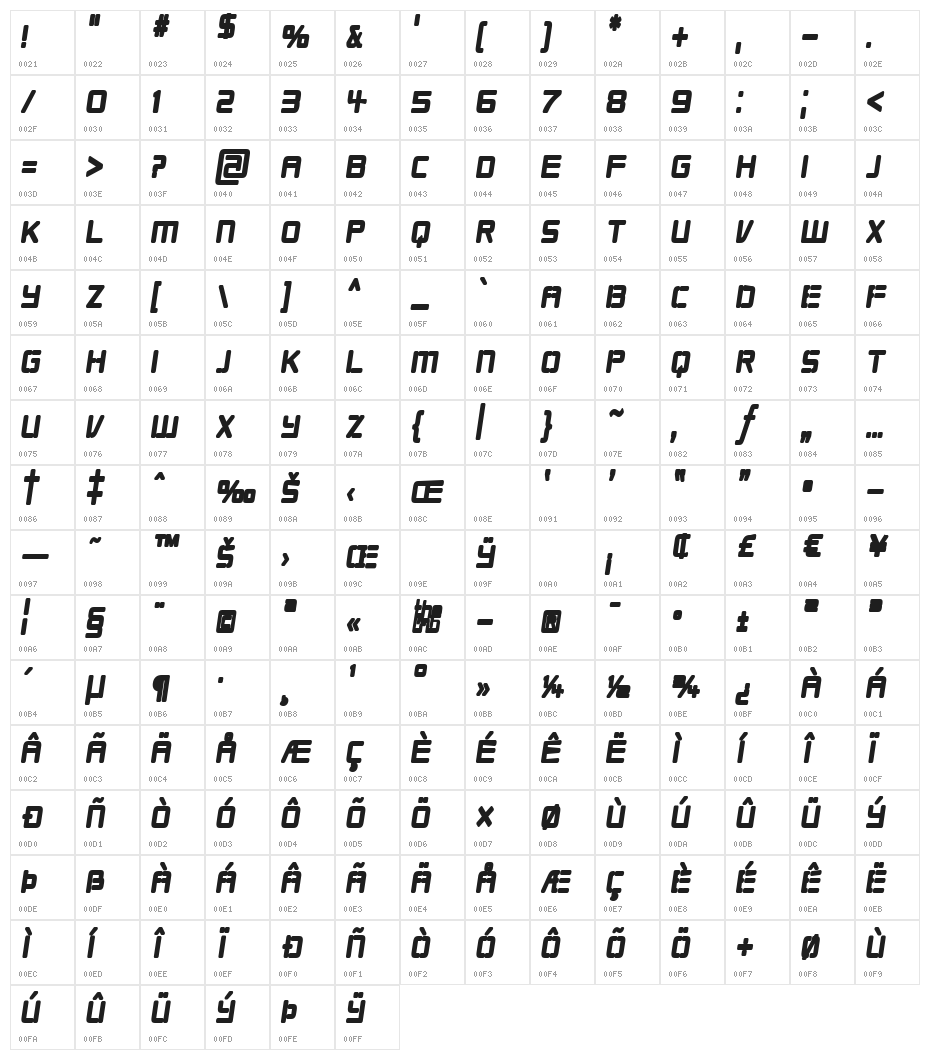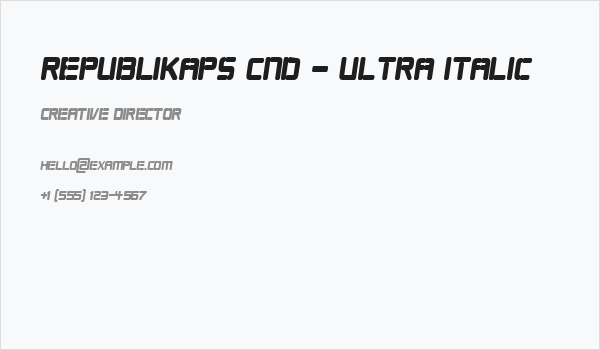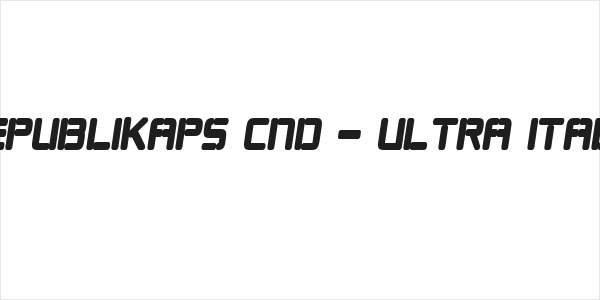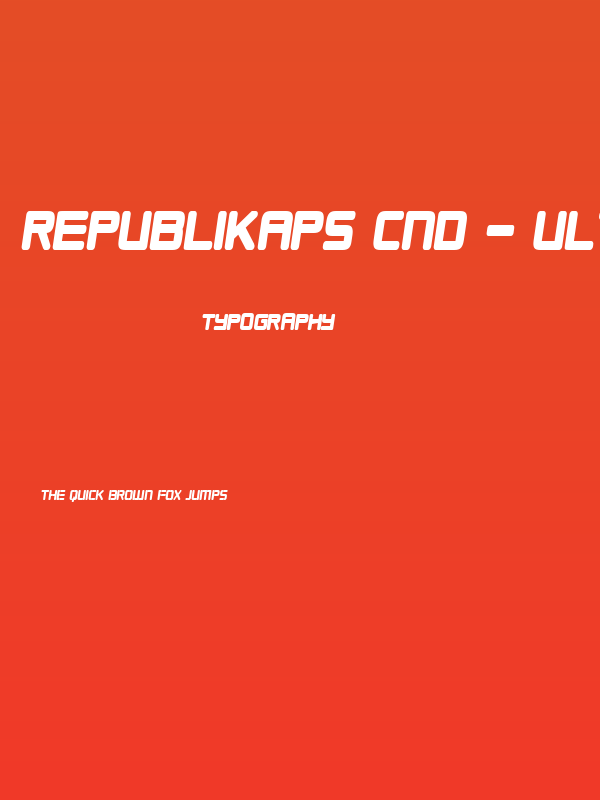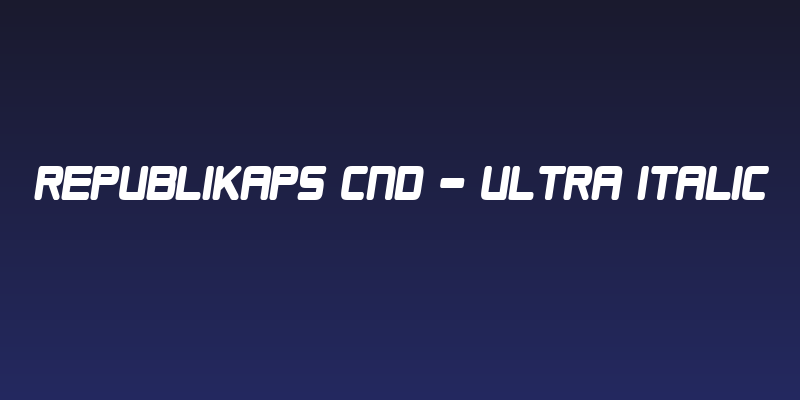
Republikaps Cnd - Ultra Italic Font
Republikaps Cnd - Ultra Italic Description
This font features a bold and dynamic design with a distinctly modern appeal. The characters are condensed and italicized, giving them a sleek and forward-leaning appearance. The strokes are thick and uniform, contributing to a strong visual impact. The rounded edges soften the overall look, making it approachable yet assertive. This style is well-suited for projects that require a contemporary and energetic feel, such as sports branding or tech-related designs. The numerals and special characters maintain the same boldness and style consistency, ensuring a cohesive look across various applications.
| Proposed Projects | Ideal for sports branding, tech-related designs, dynamic posters, and modern advertisements. |